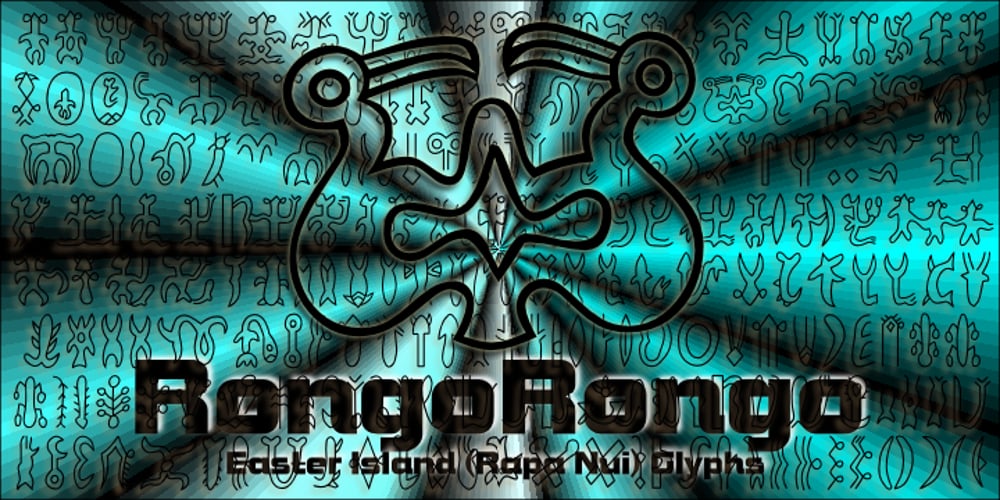
RongoRongo
RongoRongo font
RongoRongo Font Family was designed by Denise Koehler and published by Deniart Systems. RongoRongo contains 8 styles and family package options. The Deniart RongoRongo series contains 292 unique symbols based on the inscriptions found on ancient tablets from Easter Island. Many attempts have been made to decipher the script and efforts are continuing to this day. Unlike many writing systems of ancient times, rongorongo is a mixed script, not an alphabet nor a syllabic script. There are approximately 120 basic rongorongo glyphs and these basic glyphs (main signs) are then affixed (prefixed, infixed, and suffixed), fused (one glyph atop another), and compounded. A “normal rongorongo glyph” can be a mixture of any of these. Each affix, for example a basic glyph of a person in a given position, like a arm pointing in a given direction, adds a different meaning and may change given the context in which it is positioned. As such, it can be said that there may be an almost indefinite number of combinations which in turn may give an indefinite number of meanings and we are not able to provide a translation guide at this time due to these complexities.